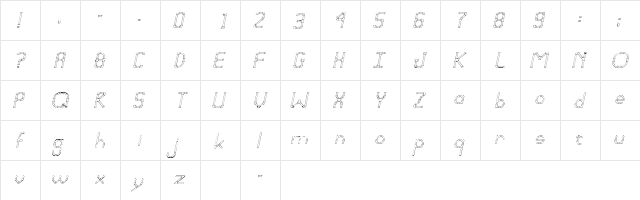
PVCSSK Italic Font Preview
PVCSSK Italic
Design Context for PVCSSK Typeface
PVCSSK takes a measured approach to typography — its balanced proportions and neutral character make it a reliable workhorse for both digital and print work. The dynamic lean of this cut emphasises speed and emphasis in any layout.
Pro Tip: Use PVCSSK for emphasis, pull quotes, and subheadings where its slanted energy can add rhythm to the layout.